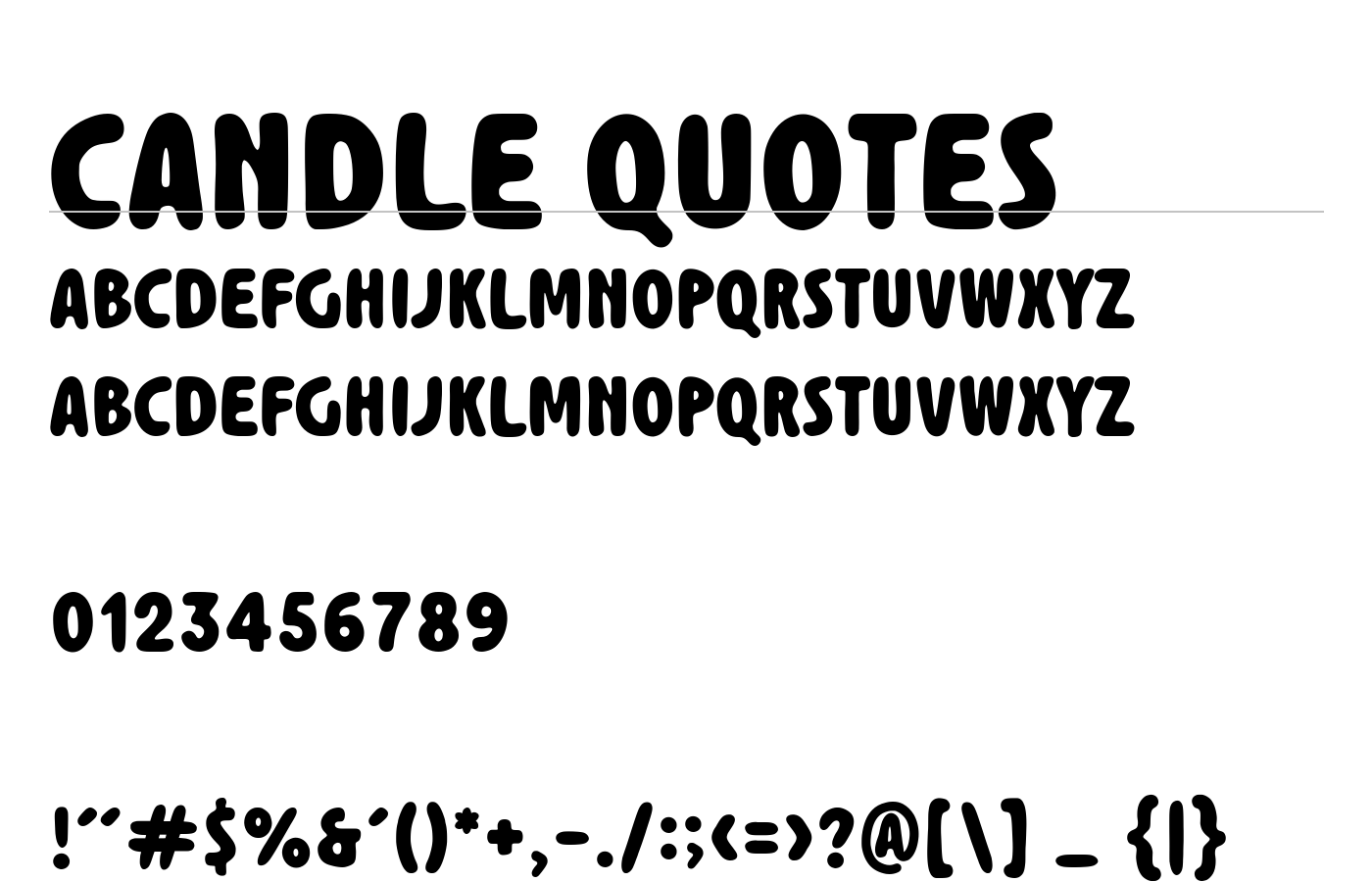
Candle Quotes is a bold, rounded sans serif font with a playful and friendly character. Its thick, smooth strokes and slightly condensed letterforms make it ideal for eye-catching headlines, logos, and casual branding where a warm, approachable feel is desired. This font works well in designs that need a touch of fun without sacrificing readability.
Candle Quotes Font
About Candle Quotes Font